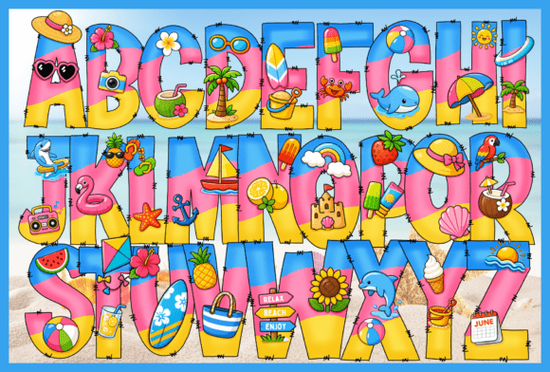
If you're looking for a cheerful, ready-to-use font that brings instant summer vibes to your projects without needing to layer clipart or adjust colors manually the Hi Summer Font is a practical choice. It’s a color font, meaning each letter comes pre-colored and illustrated with beach-themed elements like palm leaves, surfboards, and tiny flamingos no extra design steps required. You’ll find it especially handy if you’re making printable party invites, custom t-shirts for a beach-themed boutique, classroom bulletin boards for end-of-year celebrations, or even social media graphics for a small business promoting summer sales.
What makes the Hi Summer Font different from regular fonts?
Most decorative fonts are outlines only you add color, shadows, or textures yourself. But Hi Summer is built as a color font (OpenType-SVG), so every character renders in full color right out of the box in compatible software like Adobe Illustrator (CC 2018+), Photoshop (CC 2021+), or Affinity Designer. That means “S” might show a smiling seashell, “U” a tiny umbrella, and “N” a coconut with a straw all styled consistently and sized to match.
This saves time when you’re juggling multiple client requests or batch-producing items for print-on-demand platforms. No need to hunt down matching clipart or worry about alignment: the illustrations are part of the letterforms themselves. And because it includes both uppercase and lowercase letters, numbers, and common punctuation, you can type full sentences not just single words and keep the playful theme intact.
Who uses this kind of font and how?
Small business owners selling summer-themed merchandise often use fonts like this to maintain brand consistency across product mockups, listing images, and packaging labels. Teachers preparing end-of-year classroom displays appreciate how quickly they can generate bright, themed banners or award certificates. Crafters building SVG files for Cricut or Silhouette machines also find value here many users convert the glyphs to outlines first (to preserve appearance), then cut or layer them cleanly.
It’s also popular among designers who work with educators or event planners, since it pairs well with simple sans-serif fonts for contrast think pairing Hi Summer for headings with a clean, readable body font for details.
How does it compare to other beachy fonts on Creative Fabrica?
If you’ve already tried Mermaid Summer Font, you’ll notice Hi Summer leans more into playful realism think detailed coconuts and expressive dolphins rather than stylized mermaid tails. For something with softer curves and pastel tones, Alex Font offers a gentler, hand-drawn feel. And if you're working with pet-related themes, Paws Dog Font brings animal charm in a completely different direction great for dog daycare flyers or pet birthday cards.
All of these fonts are designed to be easy to install and use, but Hi Summer stands out for its high visual density and cohesive summer palette. It doesn’t try to do everything it focuses on one season, one mood, and delivers it clearly.
- The bundle includes bonus vector clipart like standalone palm trees and sunglasses that you can use separately in designs.
- It works best at medium to large sizes (24pt and up); very small text may lose some illustration detail.